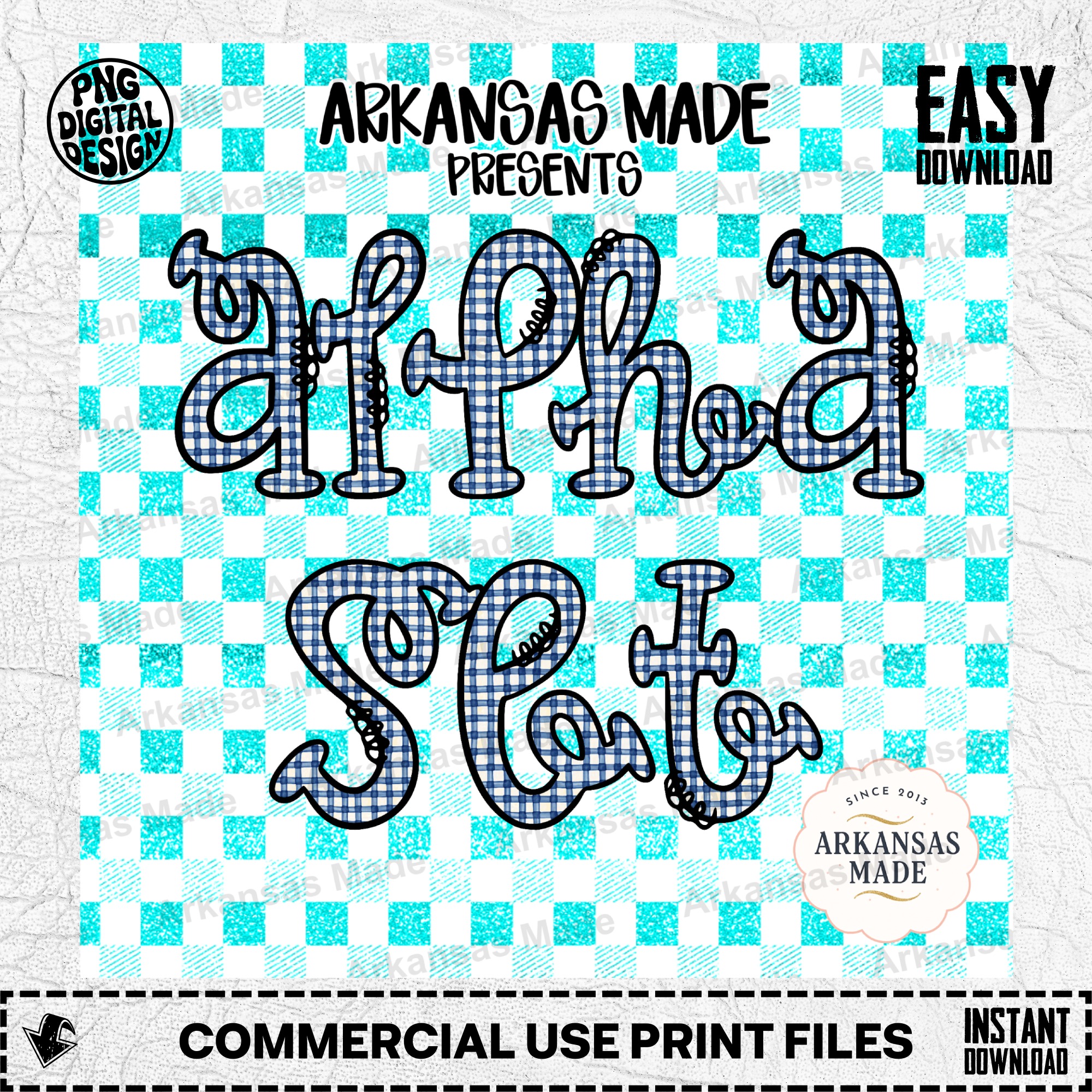
Blue Plaid Alpha Set PNG Watercolor Gingham Font Letters, Full Alphabet Digital Download for Custom Crafts, Sublimation Design Bundle
Get creative with this charming Blue Plaid Alpha Set PNG, featuring watercolor gingham letters perfect for sublimation and all your custom craft projects! Embrace a delightful country chic or preppy aesthetic with these rustic blue and white plaid letters. Ideal for DIY enthusiasts, crafters, and small business owners creating personalized items. Perfect for unique gifts, customized apparel, or charming home decor that adds a touch of southern charm.